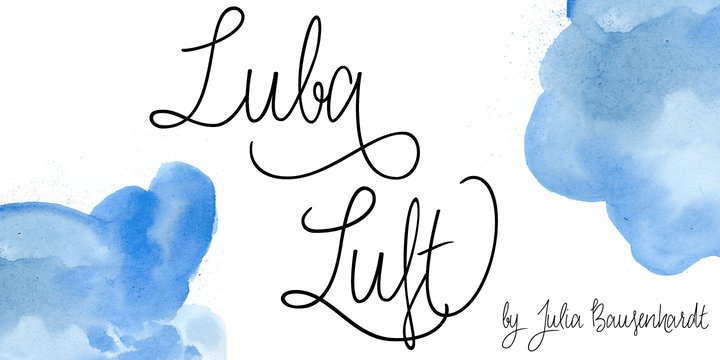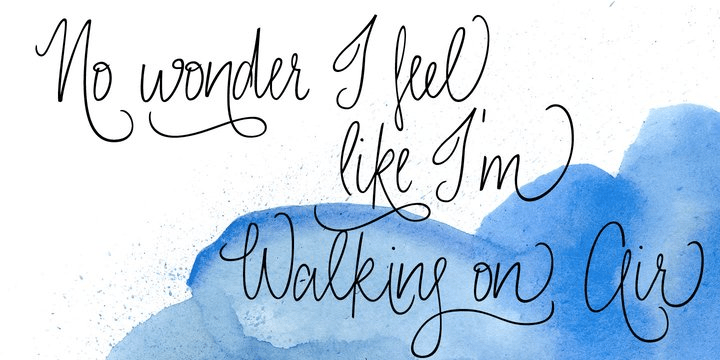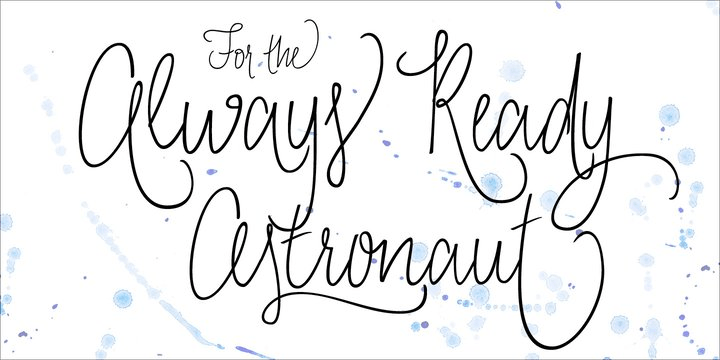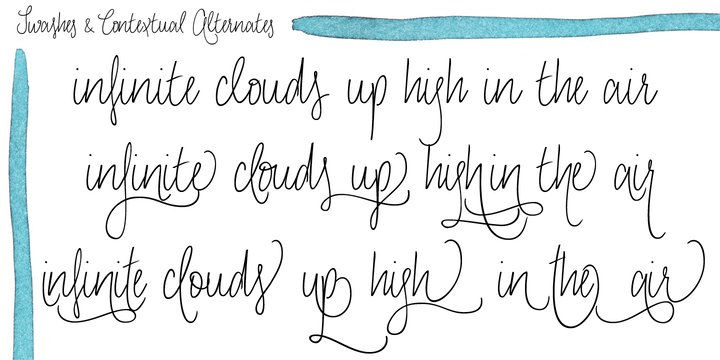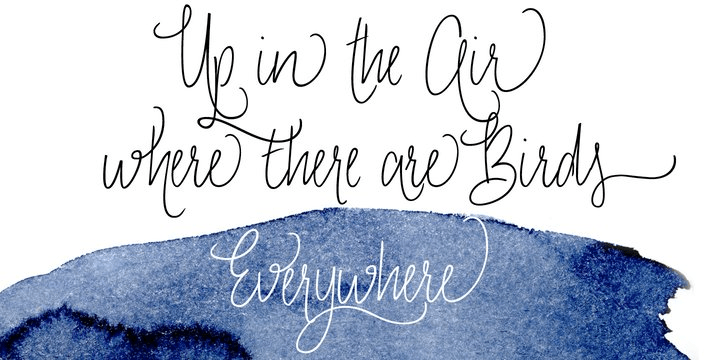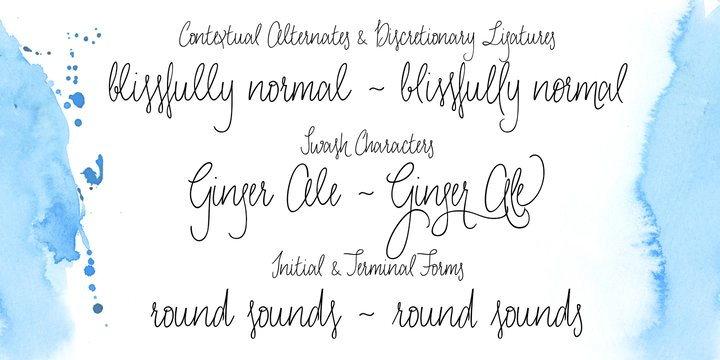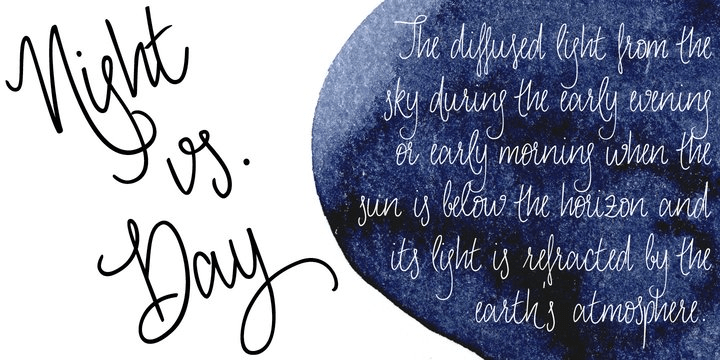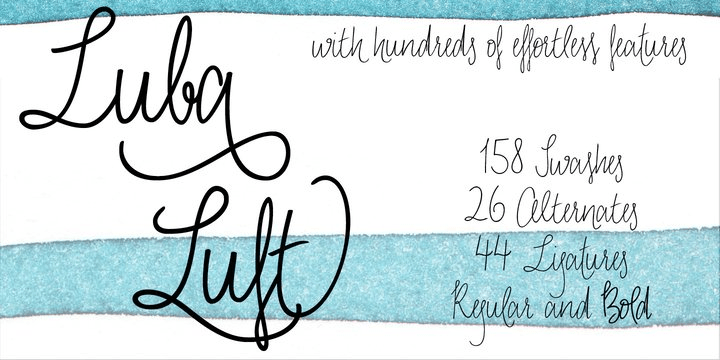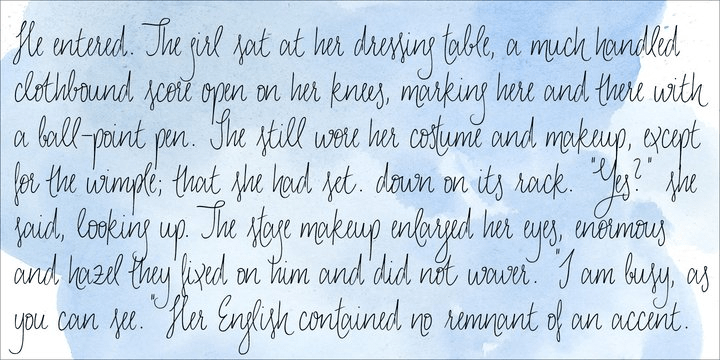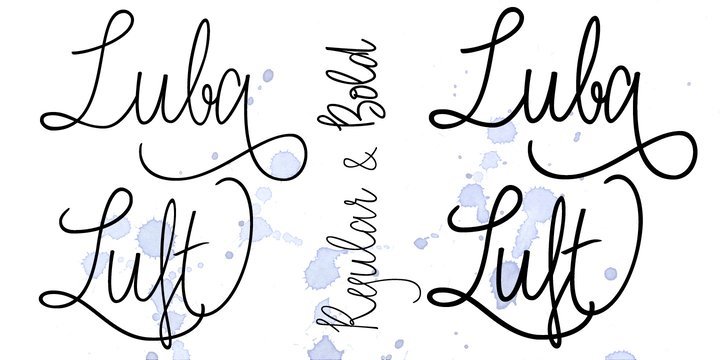
Luba Luft
Font Family by Julia Bausenhardt
Luba Luft is a semi-connected script font that has an airy and casual look to it. Smooth letters with upright curves flow effortlessly over the page, the letterforms vary slightly to emphasize the light, flowing characteristics of the typeface. One of the unique features of Luba Luft are these subtle variations, letterforms flowing and curling around each other as if written by hand - contextual alternates.
Dress your designs up with over 200 swashes, ligatures and alternates in just a few clicks in the OpenType menu. When used in longer texts you'll get a very readable script typeface that's very natural looking due to the inbuilt OT functionality. Luba Luft comes in two variants (Regular and Bold) and is the ideal typeface for packaging, menus, labels, cards and invitations.